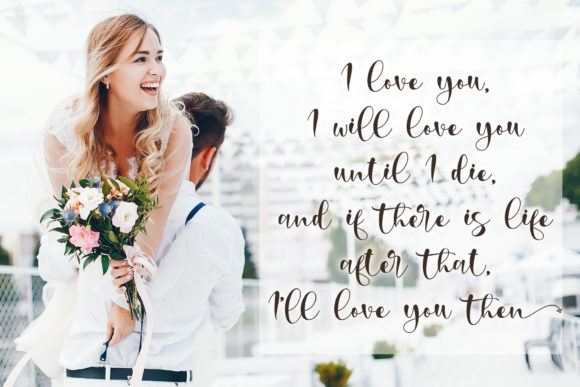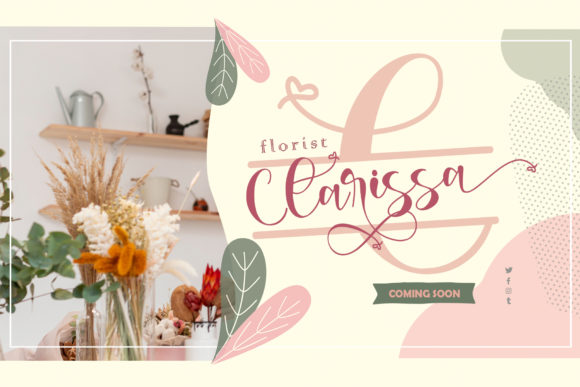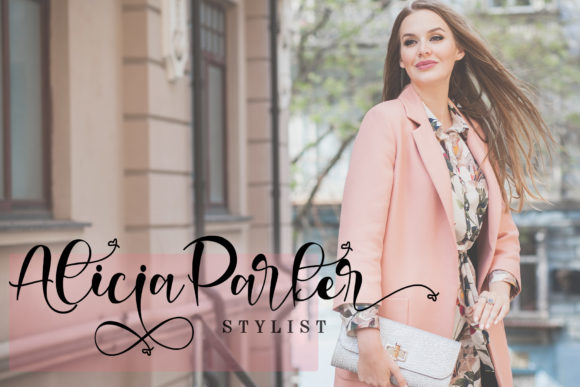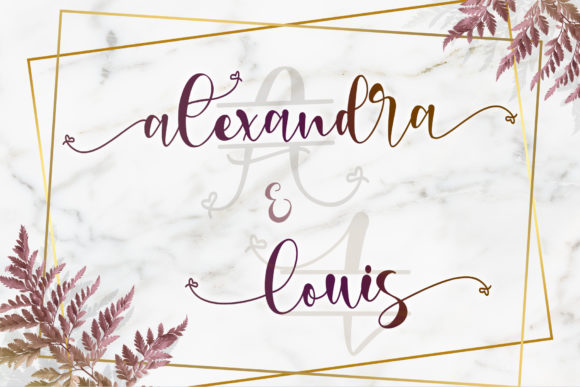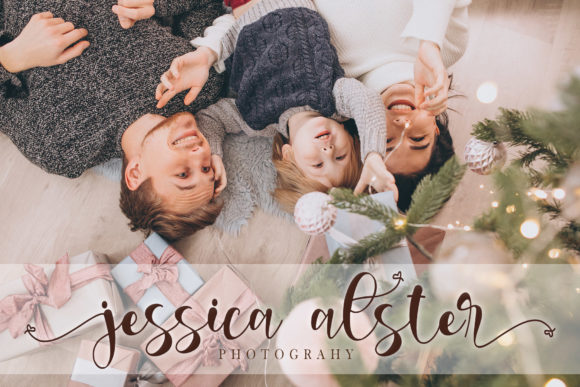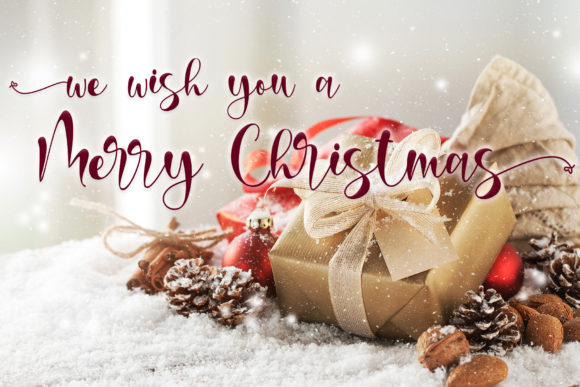
The Perfect Font for Your Holiday Creations
It’s that time of the year when we start thinking about holiday cards, gift tags, and all sorts of festive crafts. You’re sitting at your desk, surrounded by papers, glue, and glitter, trying to come up with the perfect design. But then, it hits you – the perfect font that will make your creations truly special.
Enter Barbiel Font, a romantic and festive handwritten font that’s sure to add a touch of magic to your holiday projects. With its beautiful monogram and elegant feel, Barbiel Font is ideal for greeting cards, gift tags, and any other project that requires a dreamy touch. As a designer, you know how valuable it is to have the right font to bring your vision to life, and Barbiel Font is definitely a valuable addition to your collection.
Barbiel Font Key Features
- Unique Characteristics: The Barbiel font features a unique blend of elegant and modern design elements, making it suitable for a wide range of applications, from formal to informal use.
Barbiel Font Review
Overall, I’d say Barbiel Font is a unique and intriguing typeface. It’s got a certain charm that’s hard to resist.
- Expressive and emotive design: Barbiel Font has a lot of character, which makes it perfect for creative projects where you want to convey a certain tone or mood.
- Good for headlines: The font’s bold, eye-catching style makes it ideal for grabbing attention in headlines or titles.
- Variety of weights: Barbiel Font comes in multiple weights, which allows for a lot of flexibility in terms of styling and formatting.
- Not ideal for body text: Due to its expressive and emotive nature, Barbiel Font may not be the best choice for large blocks of body text, as it can be tiring to read.
- Limited legibility: The font’s unique design can make it difficult to read at small sizes or in low-light conditions.
- May not be suitable for formal projects: Barbiel Font’s playful and creative vibe may not be the best fit for formal or professional projects.
In conclusion, Barbiel Font is a great choice for creative projects where you want to add some personality and flair. However, it may not be the best choice for every situation, and you should carefully consider the limitations before using it.
Getting the Most Out of Barbiel Font
To get the most out of Barbiel Font, follow these tips:
- Use the font in combination with bold and italic styles to add emphasis.
- Use Barbiel Font in conjunction with other fonts to create a unique and eye-catching design.
Barbiel Font is commonly used in:
- Logo design and branding
- Social media graphics and advertising
Compared to Barbiel Font, Merriweather is more formal and traditional, while Barbiel Font is more modern and playful. Merriweather is also more suitable for print design, whereas Barbiel Font is more versatile and can be used for both digital and print design.
What is the recommended font size and line height for optimal readability with the Barbiel Font?
The recommended font size for the Barbiel Font is between 12-14 points for body text, and 18-24 points for headings. For line height, we recommend a minimum of 1.2 to 1.5 times the font size to ensure optimal readability and visual balance.